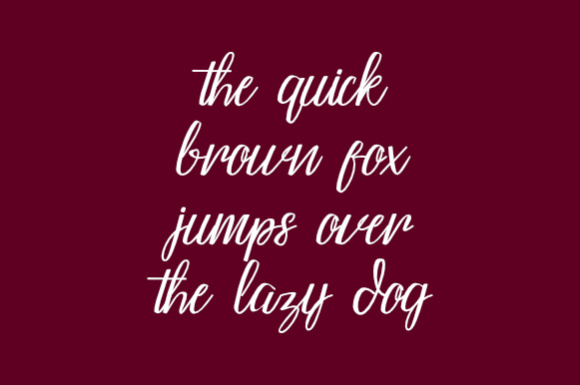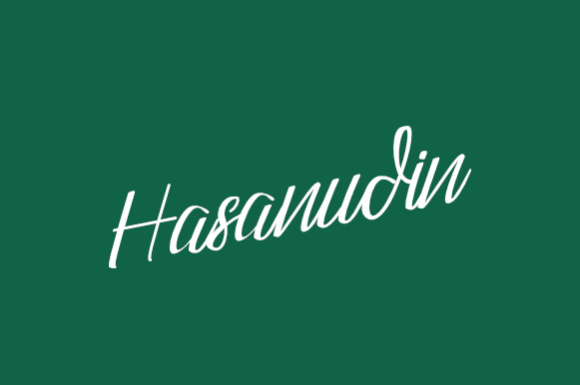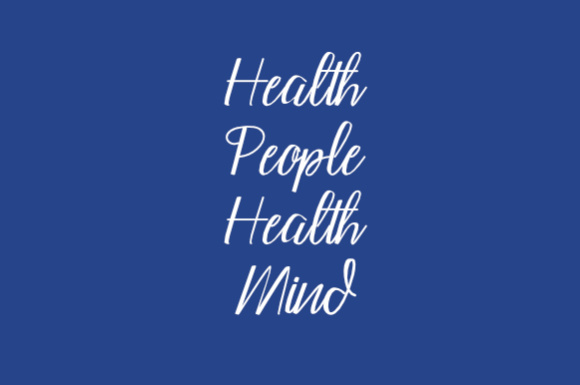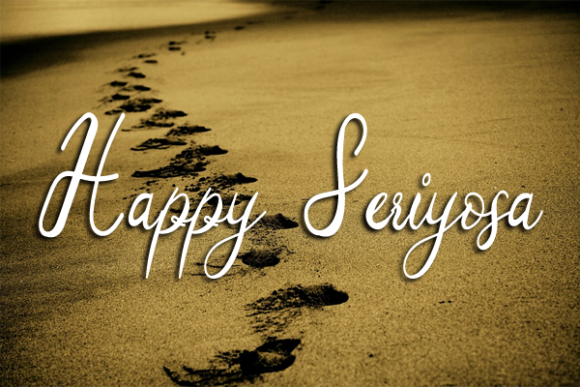
HomeScript FontsHusna Font Script Fonts Husna Font FacebookXPinterestWhatsApp Husna Font Poster 2 Husna Font Poster 3 Husna Font Poster 4 About Husna Font Husna is a fun script font. It’s eligible and works great a large range of different designs. DOWNLOAD ON CREATIVE FABRICAThis font is sold and delivered by Creative Fabrica. Font Canyon may earn a commission if you buy through this link. People also explored Balisten Font Farmhouse Font Ekela Font Dallastown Font Happy Mandala Font Nakytta Font Backlash Delicimot Font Sonetto Font 377 0 TagsHusna Font Previous articleDaylily Script FontNext articleTanpa Kata Font LEAVE A REPLY Cancel reply Comment: Please enter your comment! Name:* Please enter your name here Email:* You have entered an incorrect email address! Please enter your email address here Website: Save my name, email, and website in this browser for the next time I comment. Personal Use Free Gunplay Personal Use Free Read more about this font Splatter Splash Personal Use Free Read more about this font Osaka Personal Use Free Read more about this font Whitelight Personal Use Free Read more about this font BLOG Using Fonts in Digital Marketing: Tips to Strengthen Your Brand Identity In the realm of digital marketing, every visual element plays a crucial role in shaping a brand's identity, and fonts are no exception. The... Best Fonts for YouTube Videos: Make Your Thumbnails Stand Out Transform Your Website: Elevate Your Typography with 7 Best Web Font Generators How to Cut Any Font on Cricut: Convert a Font to SVG (Free)